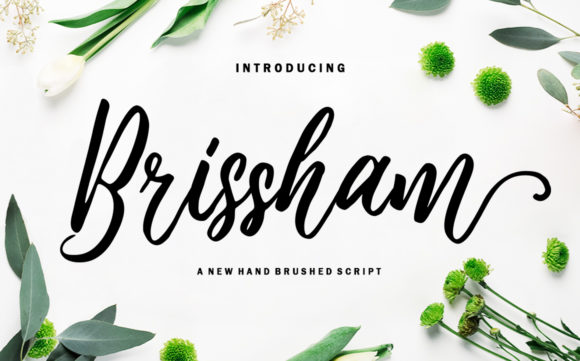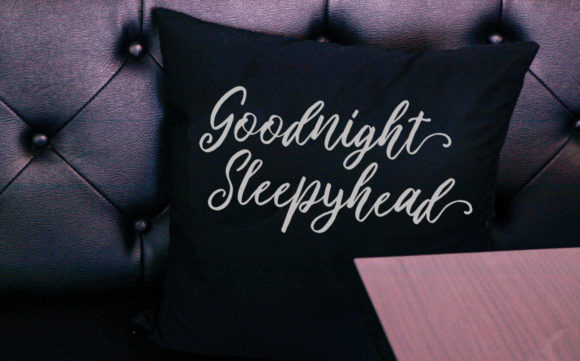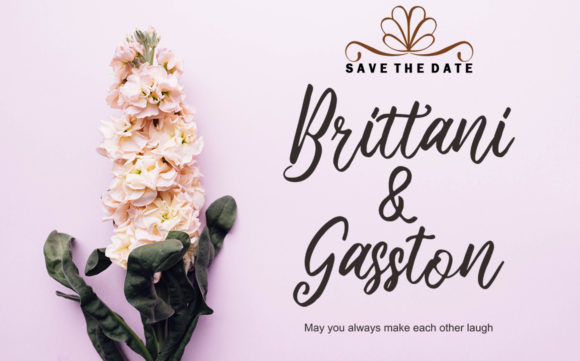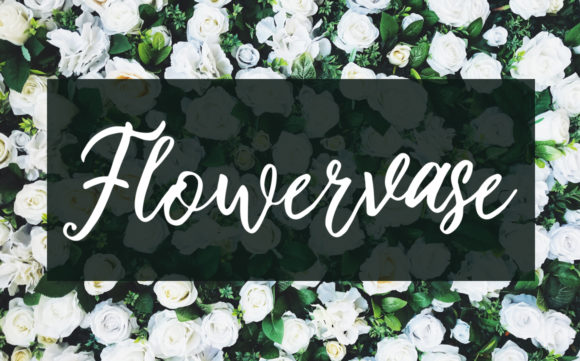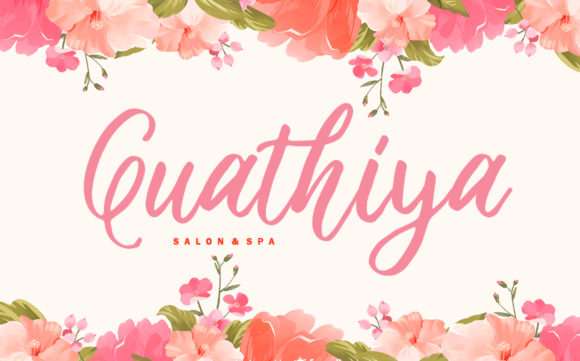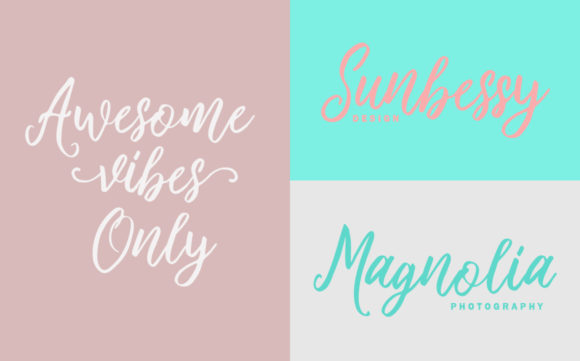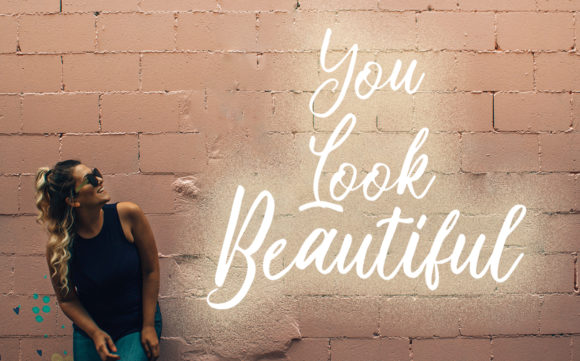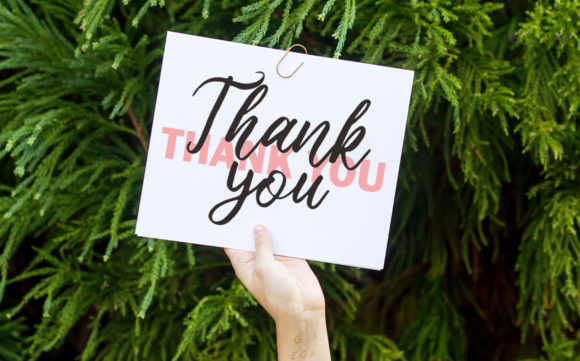
Brissham Font
About Brissham Font
Brissham is a modern homage to calligraphy, delivering an outstanding script font experience. Fall in love with its vibrant feel, and turn any design project into a true standout!